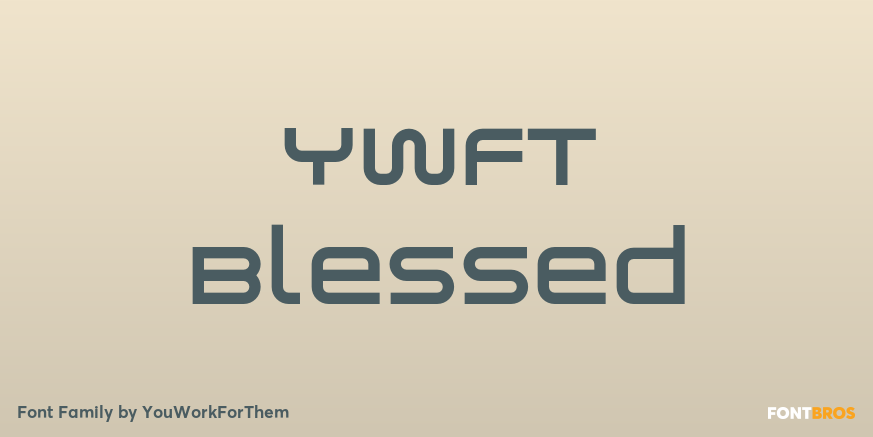
YWFT Blessed
About YWFT Blessed
Intelligent design? This font is certainly blessed. YWFT Blessed, that is. Developed as a display face while working on the 1999 redesign of mtv.com, YWFT Blessed is defined by three main objectives: legibility, uniqueness and extremely proper anti-aliasi……